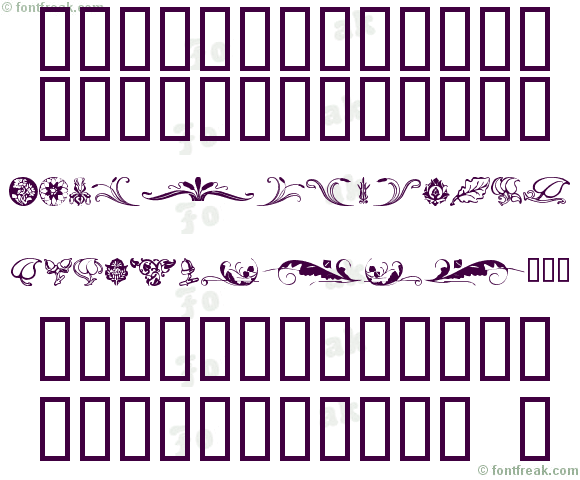
Florals 2
About Florals 2
Introducing the Florals 2 font by Font Freak, a beautifully crafted decorative typeface that brings a touch of elegance and charm to your designs. This font falls into the decorative category, making it ideal for projects that require a unique and artistic flair. The visual characteristics of Florals 2 include intricate floral motifs and ornamental elements that enhance its aesthetic appeal. With a medium stroke weight and subtle contrast, this font is visually striking yet maintains readability, allowing it to stand out without overwhelming the viewer.
Florals 2 is perfect for a variety of use cases, including wedding invitations that call for a romantic and whimsical touch, as well as greeting cards designed to convey heartfelt messages. Additionally, this font shines in creating eye-catching restaurant menus that invite customers to explore the culinary offerings. Graphic designers can also utilize Florals 2 for branding projects, helping businesses convey a sense of creativity and uniqueness. Content creators will find this font to be an excellent choice for social media graphics, adding an artistic element that captures attention.
The target audience for Florals 2 includes graphic designers, small business owners, and content creators who are looking to elevate their design projects with a distinctive typeface. Whether you’re working on personal or commercial projects, Florals 2 offers versatility and flair.
In conclusion, the Florals 2 font free download is a standout choice for anyone seeking a decorative typeface that combines elegance with functionality. Its exquisite floral designs and charming characteristics make it an invaluable asset for those looking to create memorable and visually stunning designs. Embrace the artistry of Florals 2 and let your creativity flourish.